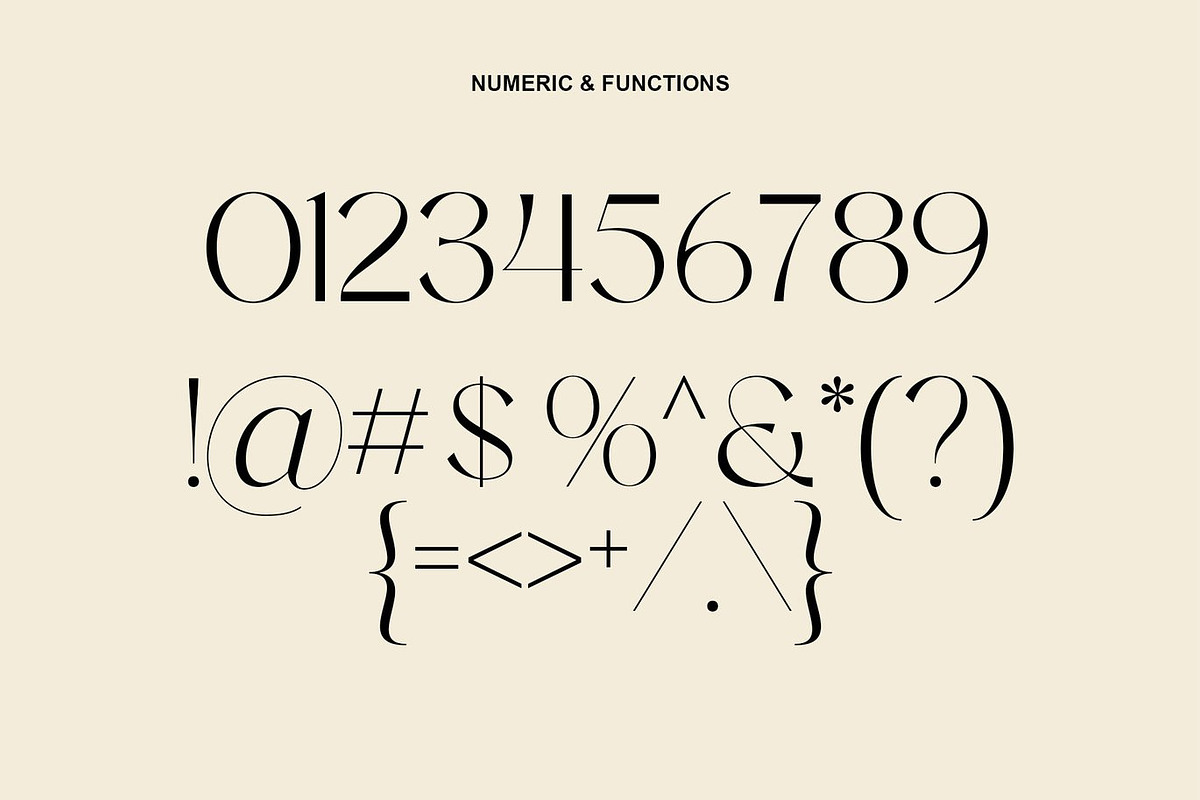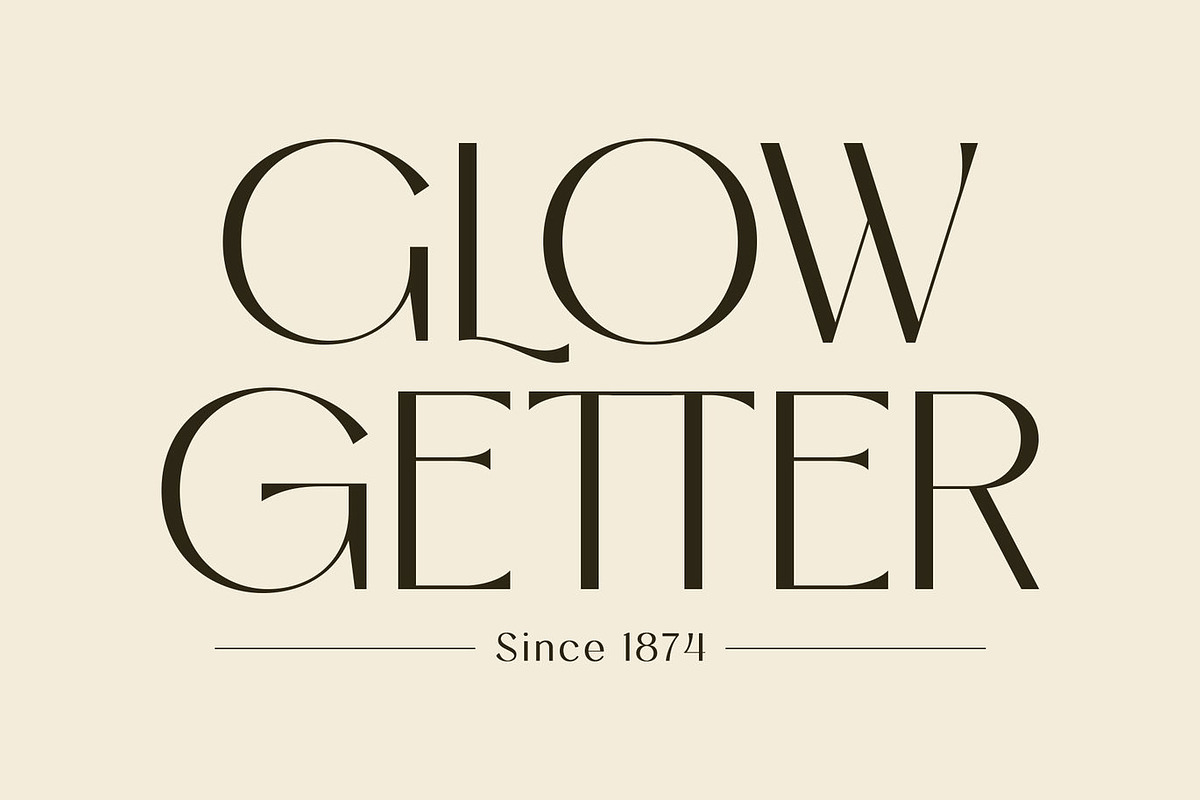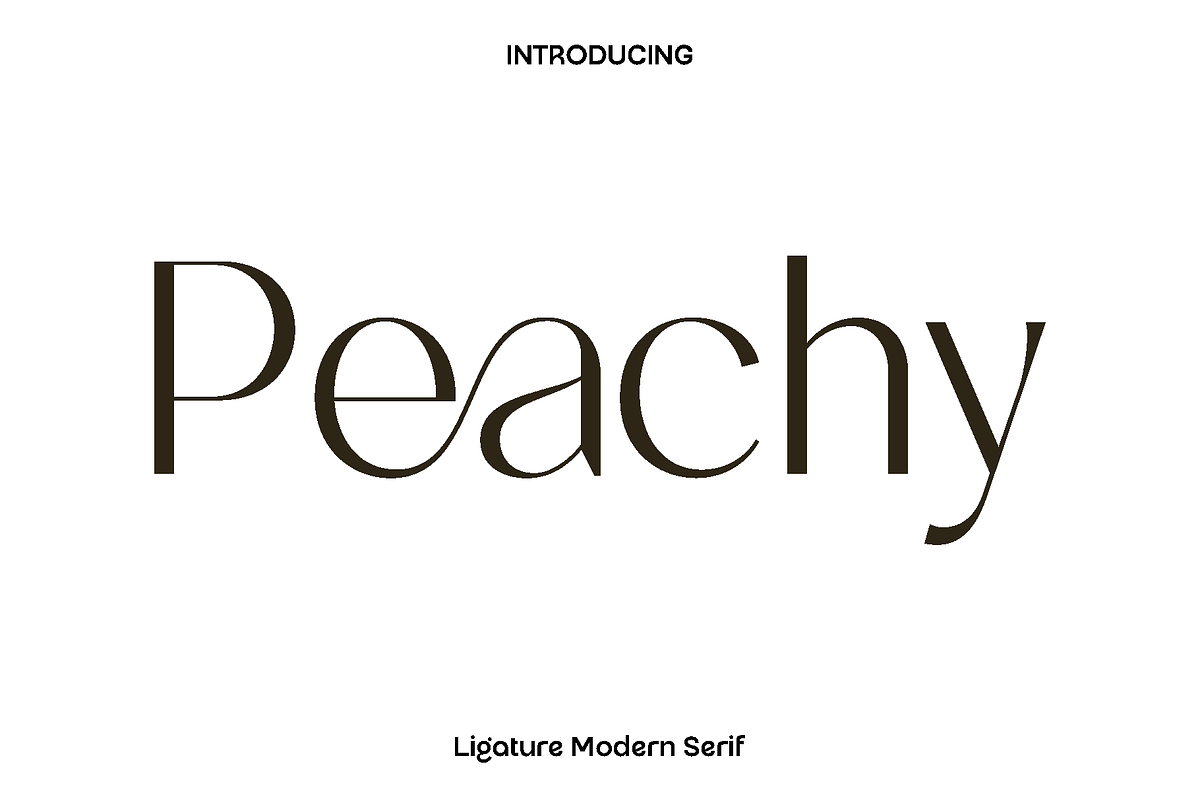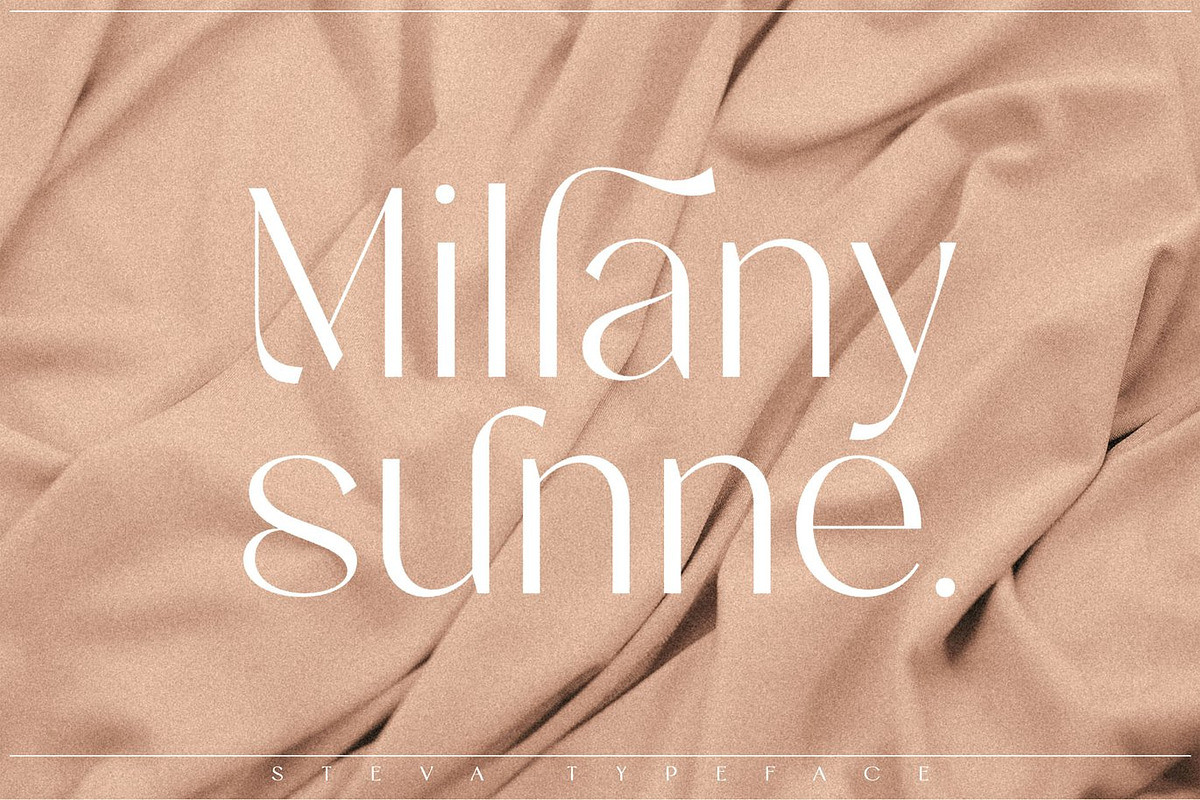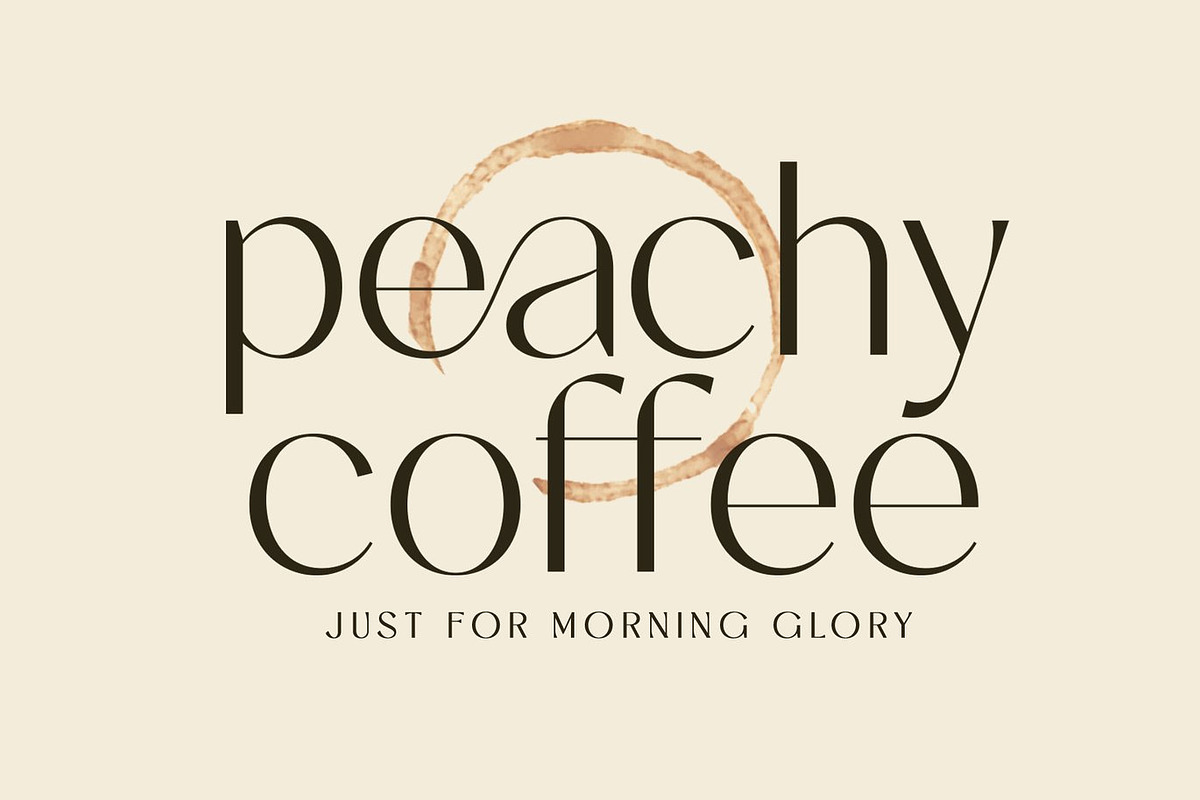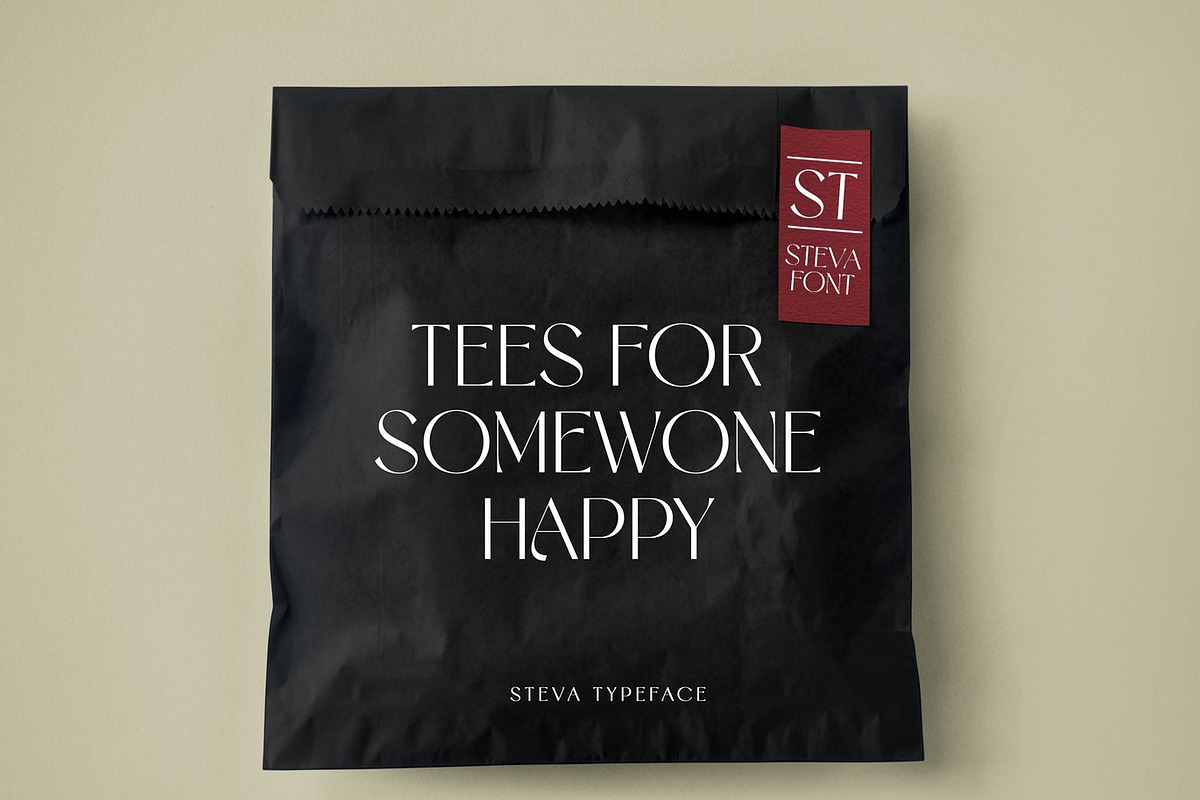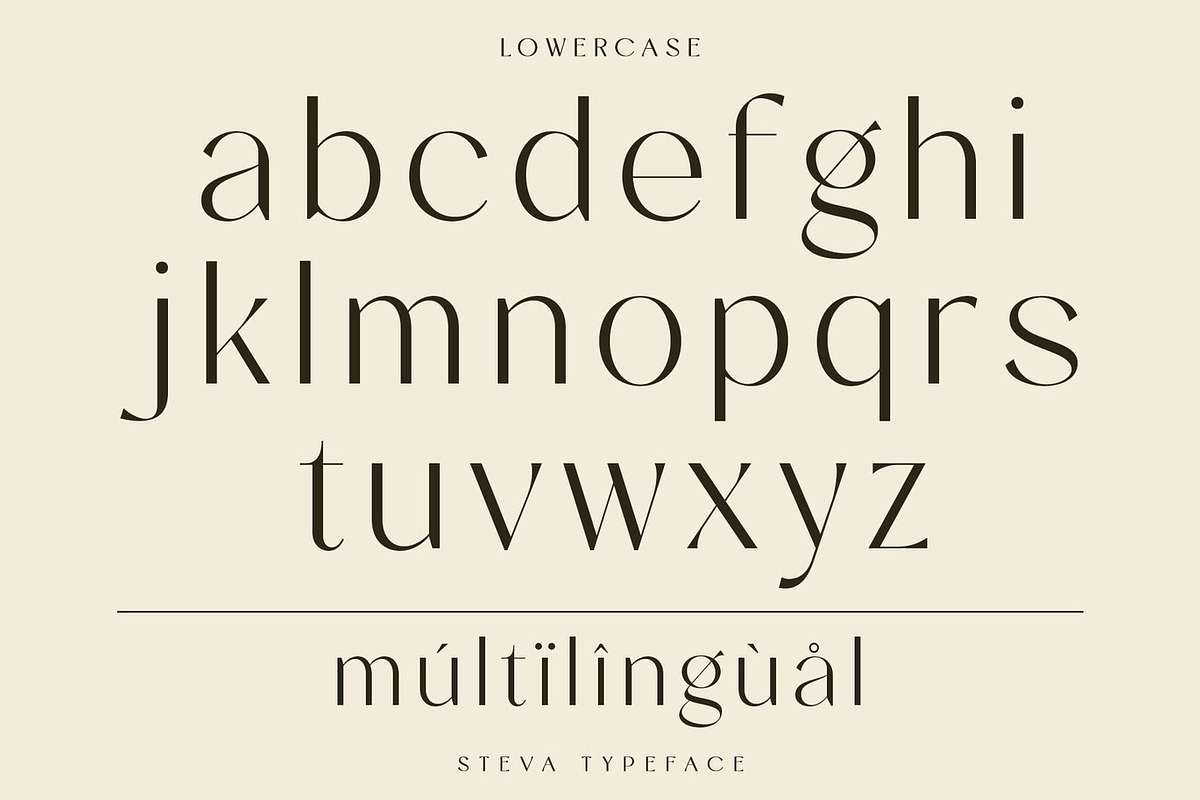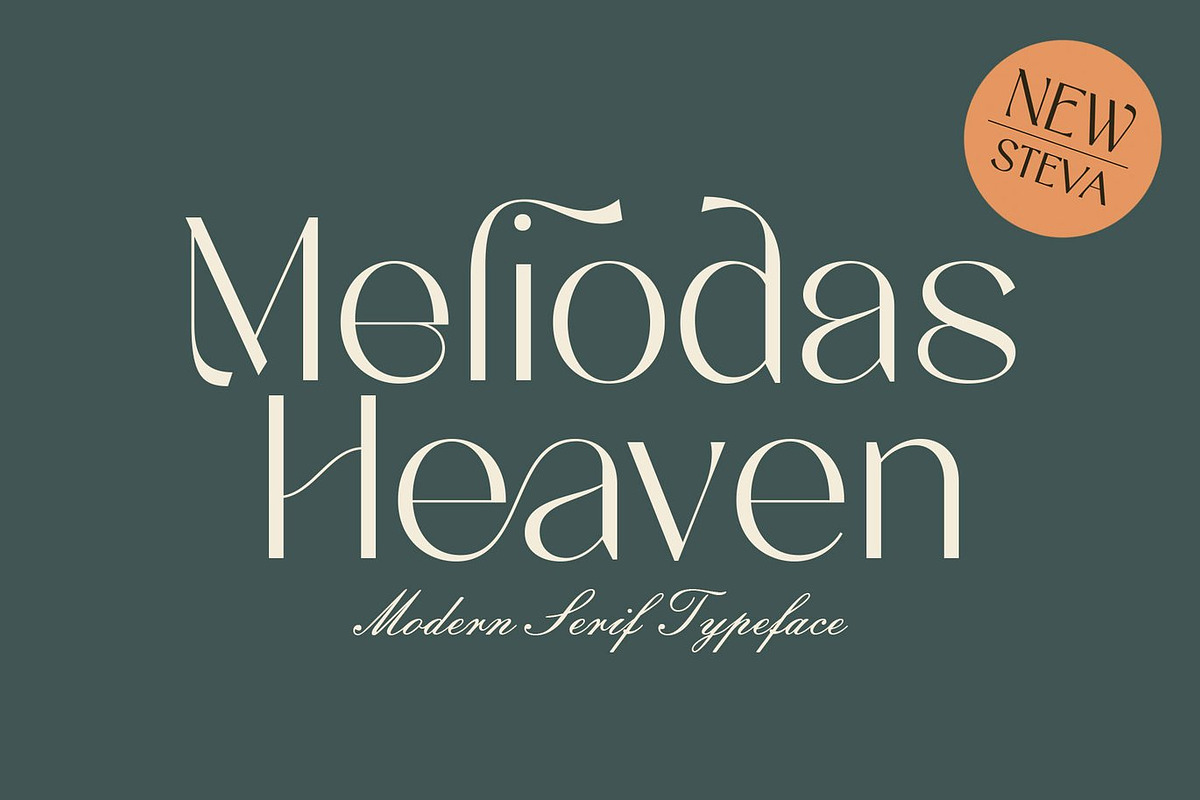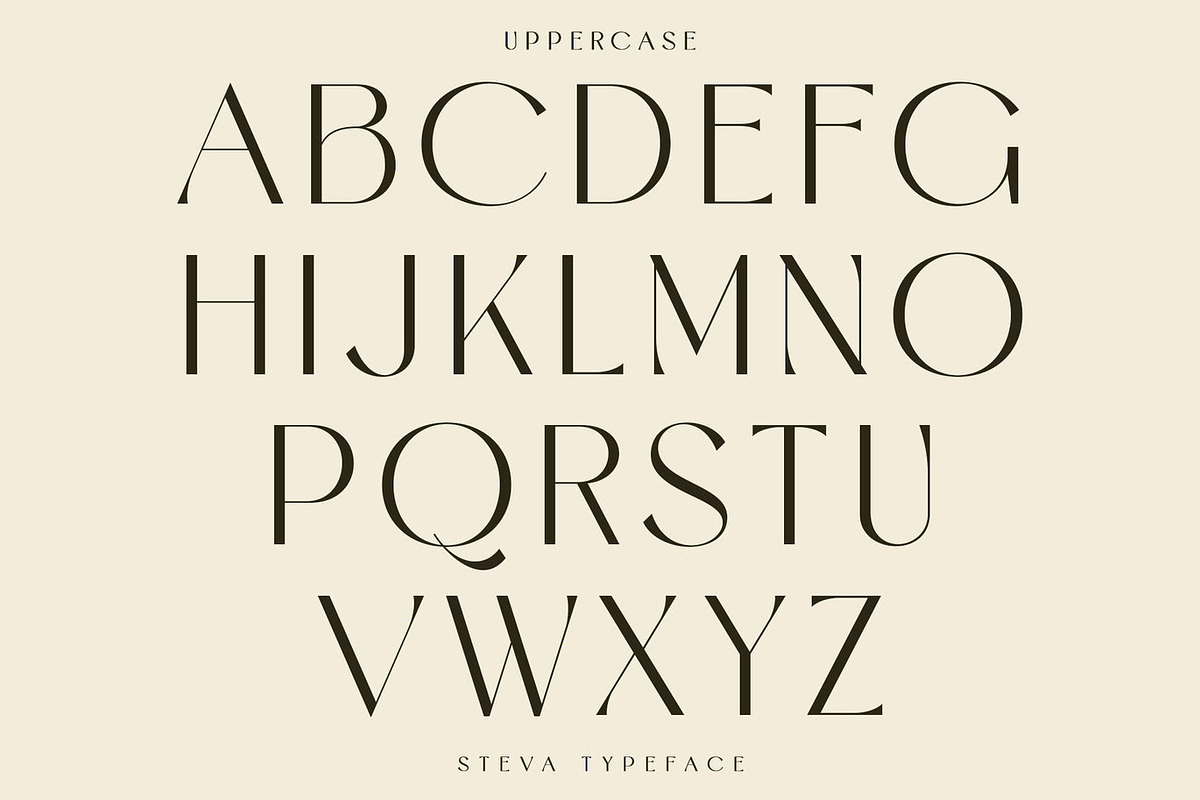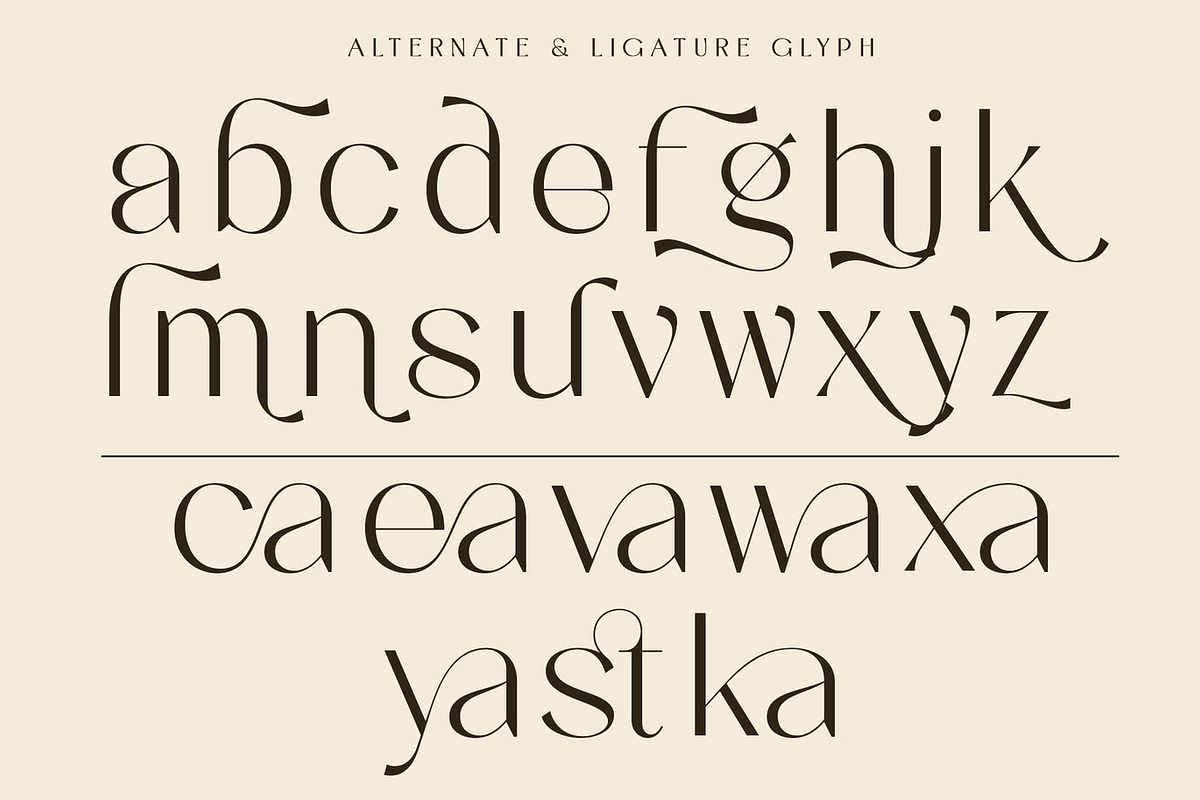
Peachy - Ligature Modern Serif
Peachy is a minimalist and elegant modern font created for designers who love clean beauty with a touch of personality. Inspired by soft aesthetics and contemporary typography trends, Peachy blends simplicity with refined charm. Its smooth letterforms and stylish ligatures give every word a graceful flow, making your designs feel fresh, polished, and effortlessly modern.
This font truly shines in branding projects, logo design, clothing labels, product packaging, magazine headers, and social media visuals. Whether used in large headlines or small body text, Peachy maintains excellent readability while adding a subtle sense of sophistication. Its versatile style makes it perfect for lifestyle brands, fashion identities, beauty products, and creative entrepreneurs who want their visuals to feel calm, elegant, and premium.
Peachy feels warm, stylish, and confident. It brings a soft luxury to your work without being overwhelming, helping your designs stand out in a clean and tasteful way. With its wide range of alternates and ligatures, you can easily customize your typography and create unique compositions that feel personal and expressive.
Peachy Font Features:
• Minimalist elegant modern characters
• Beautiful ligatures and alternate glyphs
• Uppercase and lowercase letters
• Multilingual support
• Numerals and punctuation
Let Peachy become your go to font for designs that need elegance, versatility, and modern charm in one beautiful typeface.